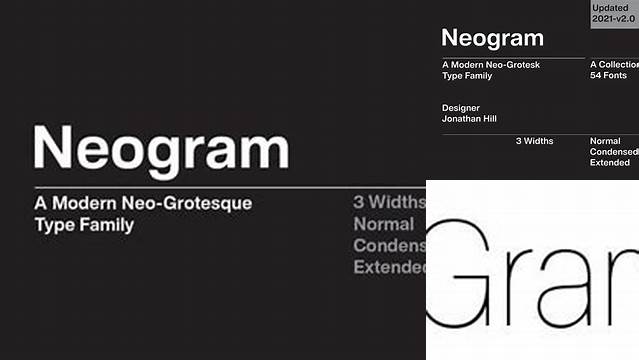
1. What is the Neogram Font?
So, what exactly is the Neogram Font? Well, it's a sleek, contemporary typeface that's perfect for a wide range of uses. It's known for its clean lines, modern aesthetic, and excellent readability. This font often features a geometric design that gives it a unique and stylish look. It's incredibly versatile, working great for everything from headlines and logos to body text and branding materials. The Neogram Font is designed to look good on both screen and in print, making it a reliable choice for any project. Many designers and creatives choose this font because of its balance between style and functionality. Its straightforward design ensures that your message is clear and easy to understand, while still making a strong visual impact. The font's inherent flexibility allows it to adapt to various design styles, from minimalist to more elaborate designs. Whether you're working on a website, a poster, or a presentation, the Neogram Font can help you achieve a polished and professional look. It's a fantastic way to add a touch of modern sophistication to your creative endeavors.
1.1. Key Features and Characteristics
Let's break down some of the key features of the Neogram Font. Firstly, it's typically characterized by its geometric shapes and clean, crisp lines. This gives the font a modern and streamlined appearance. Many versions of the Neogram Font have a high x-height, which means the lowercase letters are taller. This enhances readability, especially at smaller sizes. The font often includes multiple weights and styles, such as bold, light, italic, and regular, offering you a lot of flexibility. Many versions are designed with excellent kerning and spacing, ensuring that the letters look great together and are easy on the eyes. This attention to detail contributes to the overall visual appeal of the font. The font's versatility is another key characteristic. It's suitable for a wide variety of design applications, including headlines, body text, logos, and more. It often comes with a comprehensive character set, including support for various languages and special characters. This ensures that you can use the font in a global context. The font's design often strikes a balance between simplicity and sophistication, making it both approachable and visually interesting. The clean, uncluttered design allows your message to take center stage, while the font's unique elements add a touch of personality. The combination of readability, style, and versatility makes the Neogram Font a popular choice for designers worldwide.
1.2. Why Choose Neogram for Your Projects?
Why should you choose the Neogram Font for your projects? Let's discuss this! The first reason is its modern aesthetic. If you're aiming for a contemporary look, this font is a great fit. Its clean lines and geometric shapes give your designs a fresh, up-to-date feel. Secondly, readability is a major plus. The font is designed to be easy to read, even in smaller sizes, making it perfect for both headlines and body text. Thirdly, versatility is key. The Neogram Font works well in many different contexts. Whether you're designing a website, a poster, or a business card, this font is adaptable to various design needs. Fourthly, it's often available in multiple weights and styles. This gives you flexibility in your design choices, allowing you to create emphasis and visual interest. Fifth, the font conveys a sense of professionalism. It's suitable for projects where you want to project a polished and sophisticated image. Sixth, it's often free! As we will discuss more later, many versions of the font are available for free download, allowing you to access a high-quality typeface without spending money. Lastly, the font's popularity means that it is widely recognized and accepted. This can be beneficial for branding and overall design cohesion.